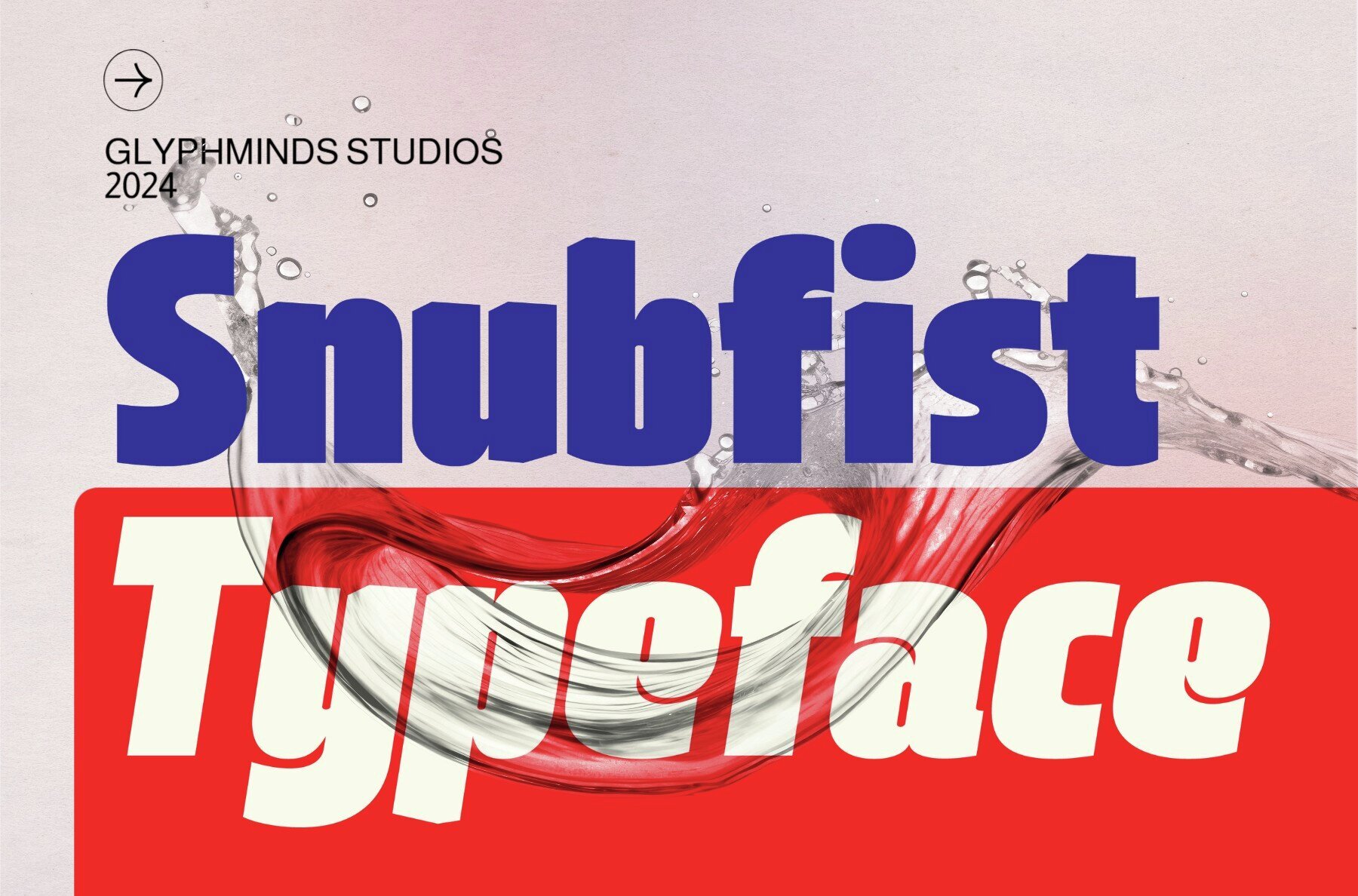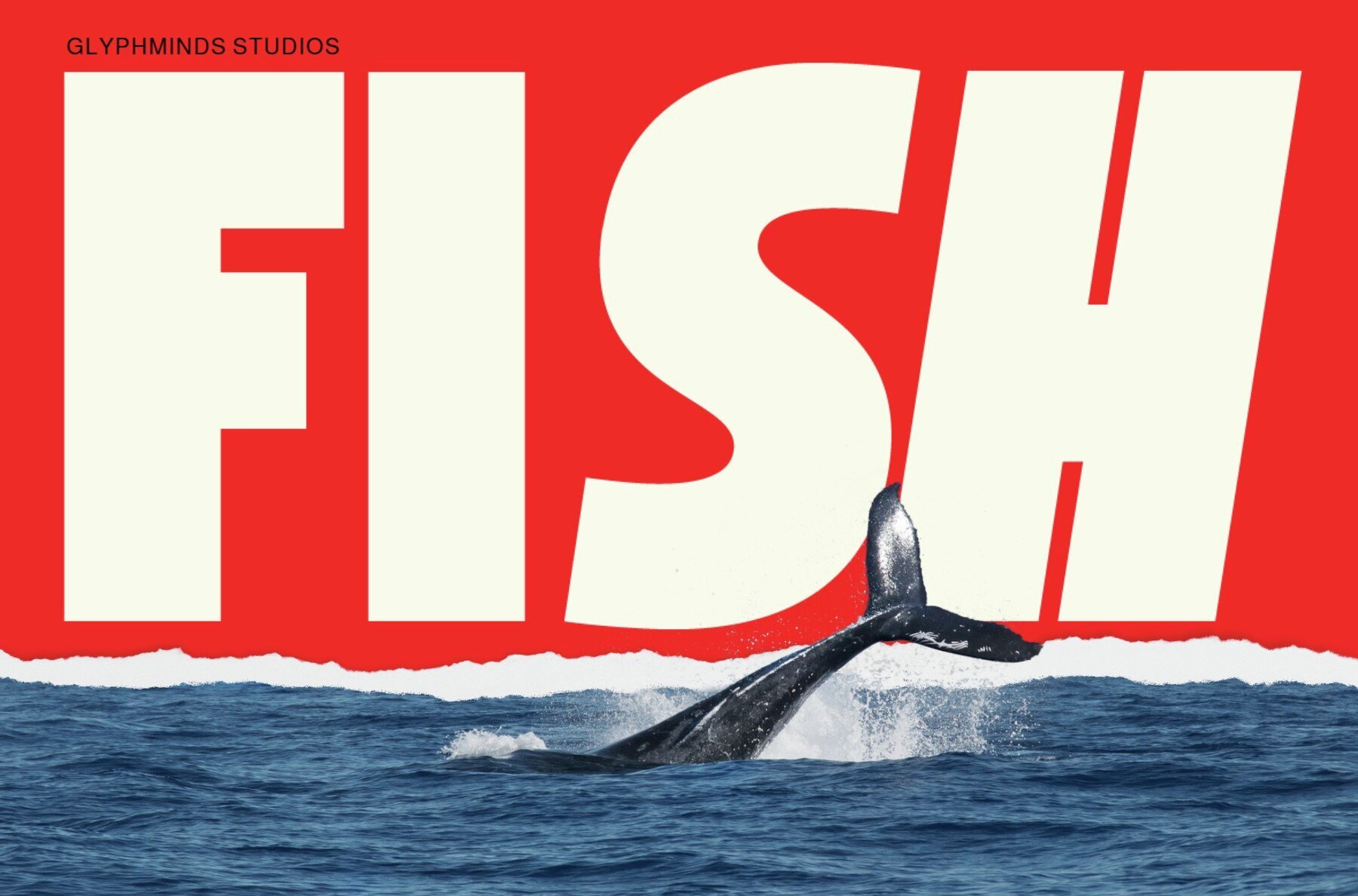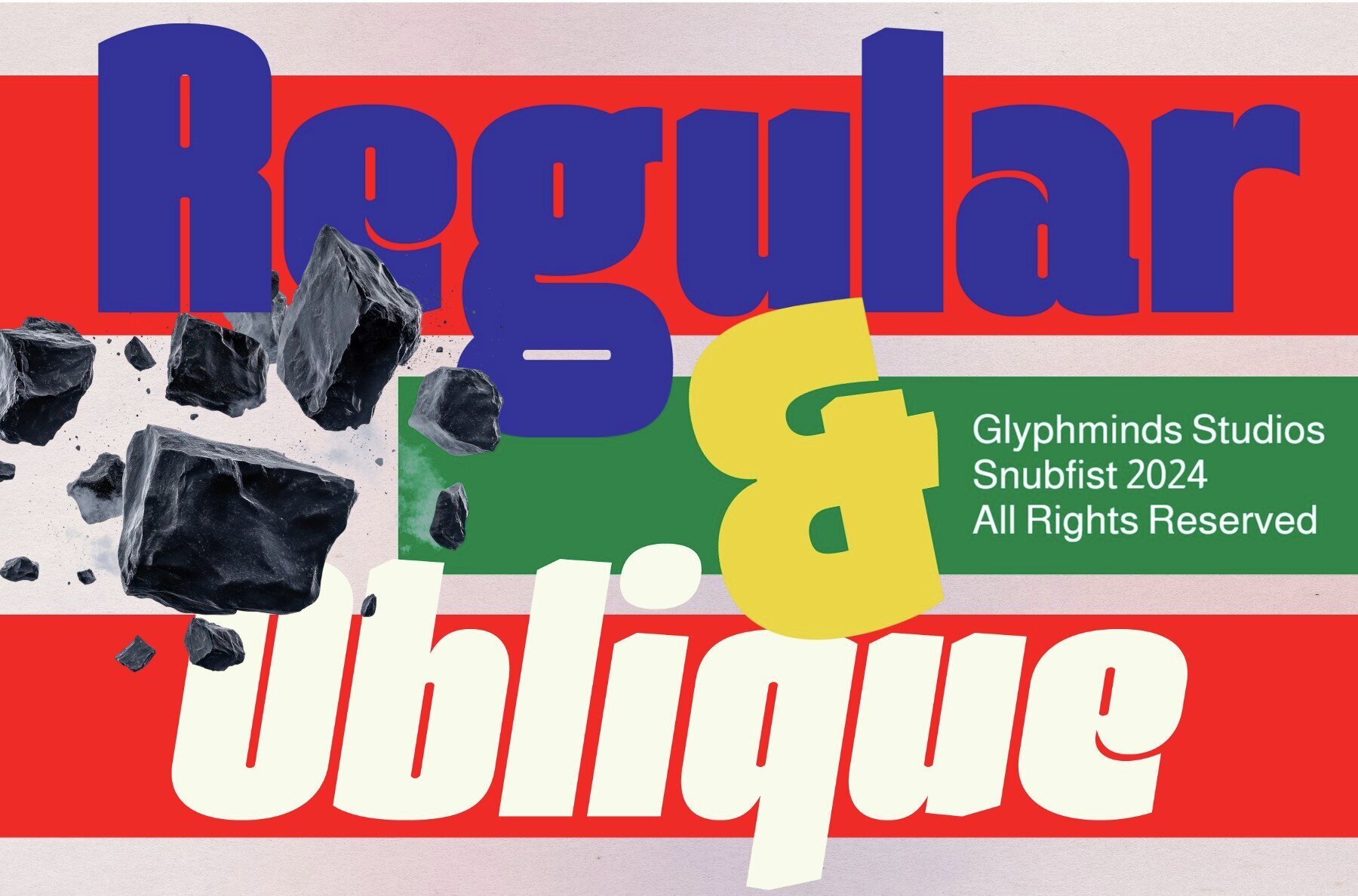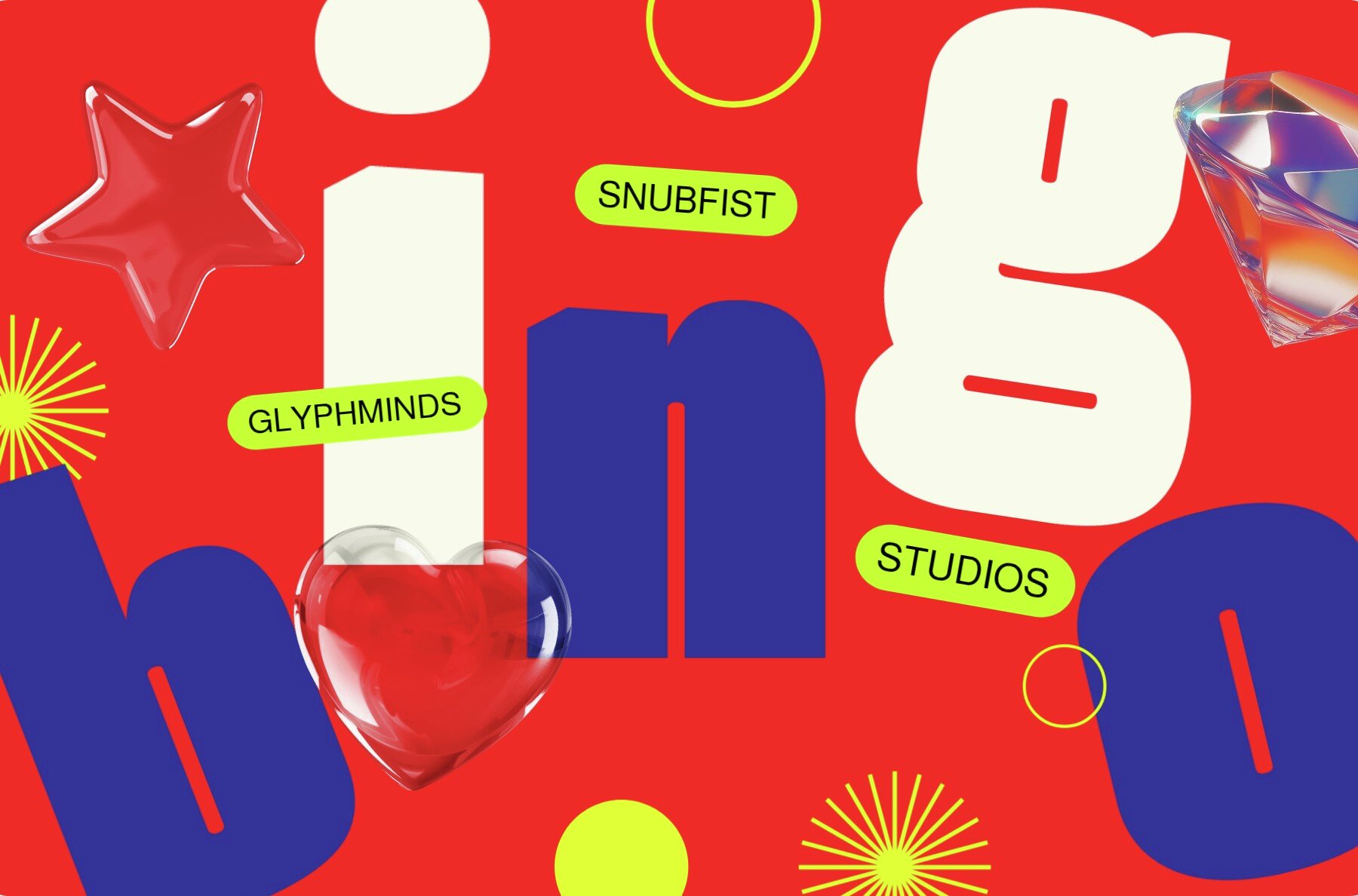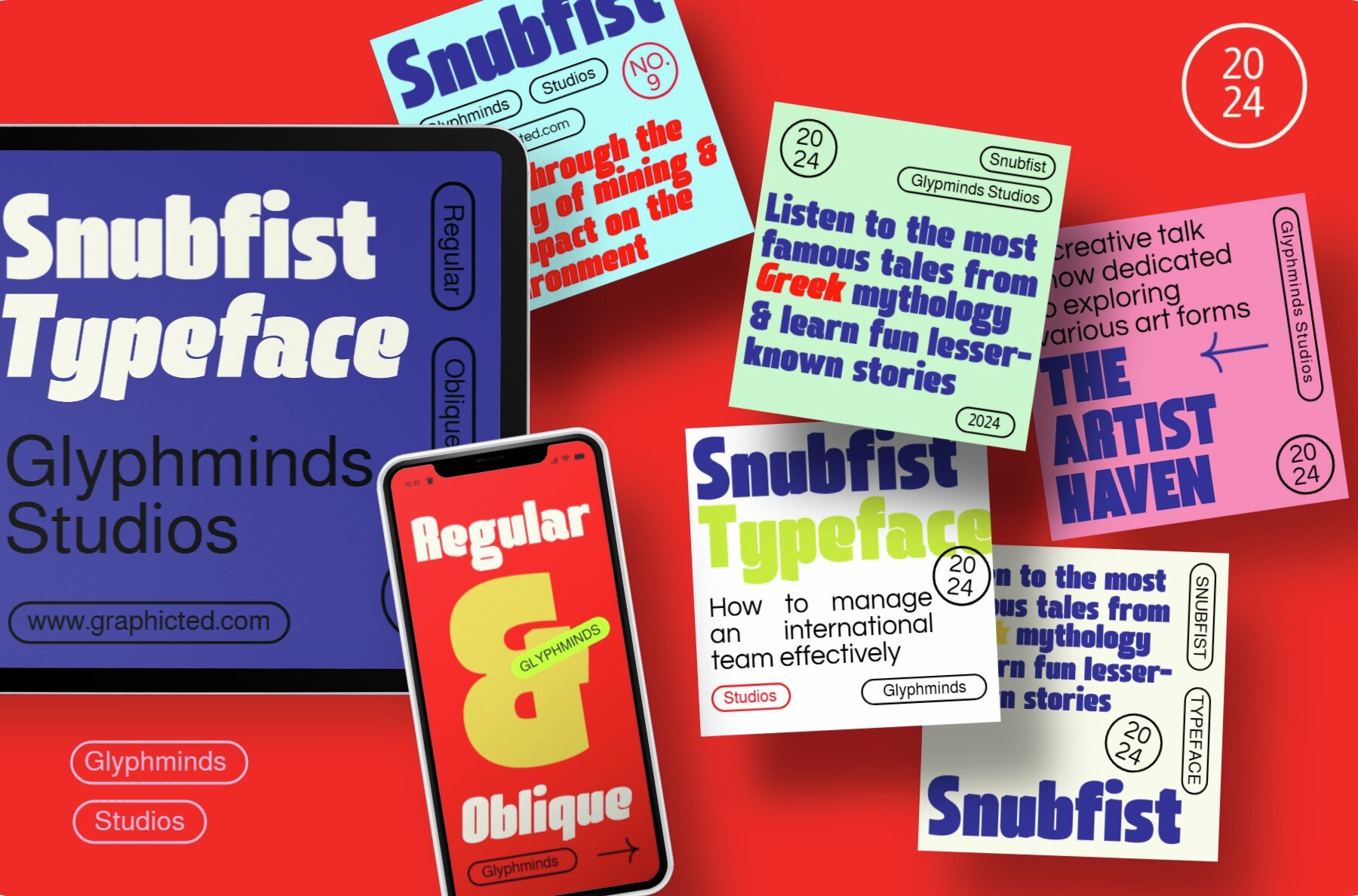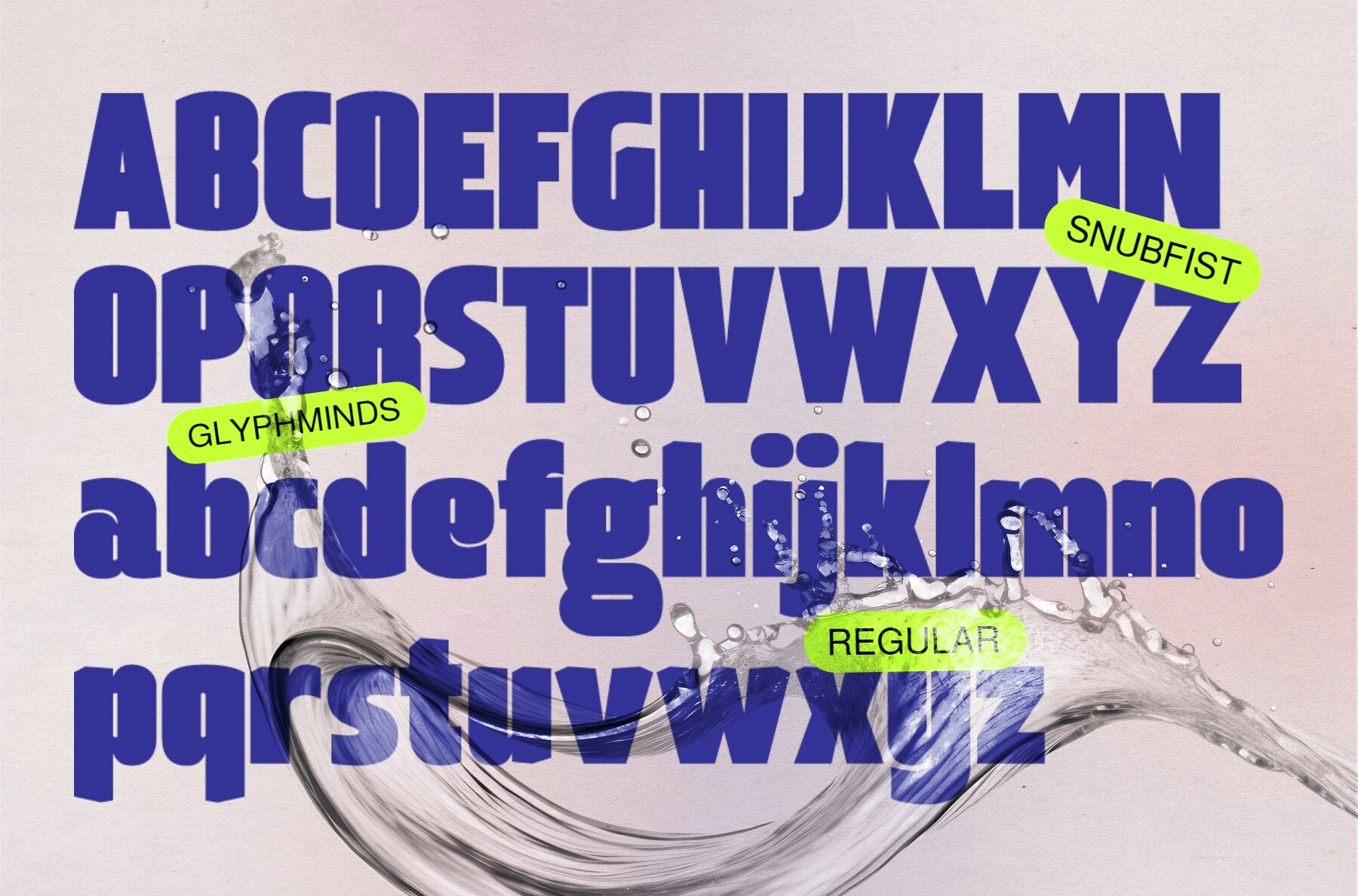
Snubfist Font
Snubfist is a dynamic and bold display typeface designed to command attention. Ideally suited for modern branding, poster designs, and striking headlines, Snubfist blends strong geometric forms with a distinctive personality. Its clean yet powerful style ensures your message stands out, whether you're working on digital ads, editorial layouts, or creative packaging.
This typeface's unique character adds an unforgettable edge to your designs. The compelling design of Snubfist makes it an excellent choice for enhancing brand visibility and creating eye-catching visual statements. Choose Snubfist to give your projects the bold impact they need.